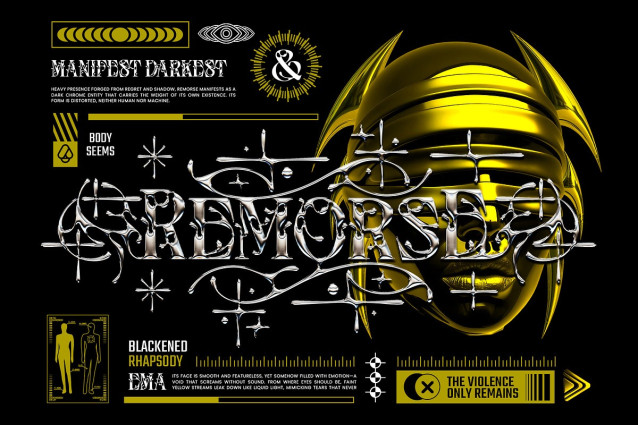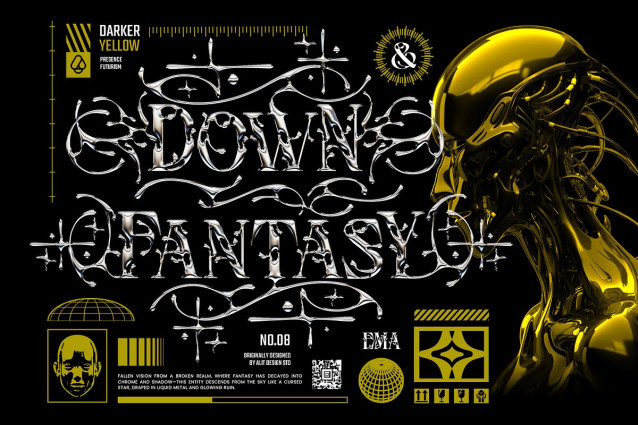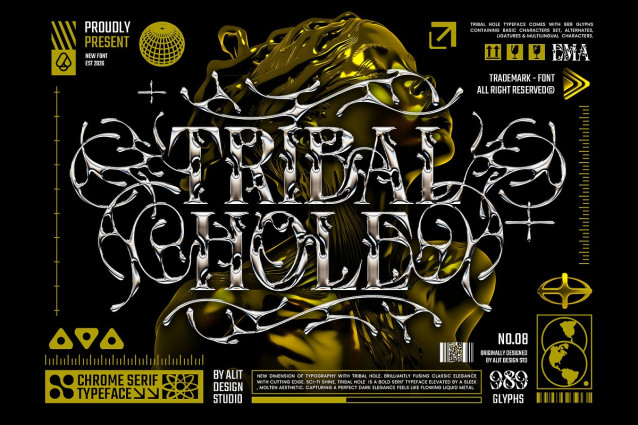
Tribal Hole Font
Tribal Hole Font is a masterpiece of modern typography, brilliantly fusing the timeless weight of a bold serif with a sleek, molten aesthetic. Inspired by the sharp, organic curves of neo-tribal art and the high-tech sheen of sci-fi chrome, this typeface is designed to capture a “dark elegance” that feels like flowing liquid metal.
Every character is meticulously crafted with cutting-edge “molten voids,” giving the font a living, breathing texture. Whether you are aiming for a gritty underground vibe or a premium futuristic look, Tribal Hole provides the versatility and visual impact needed to stand out.